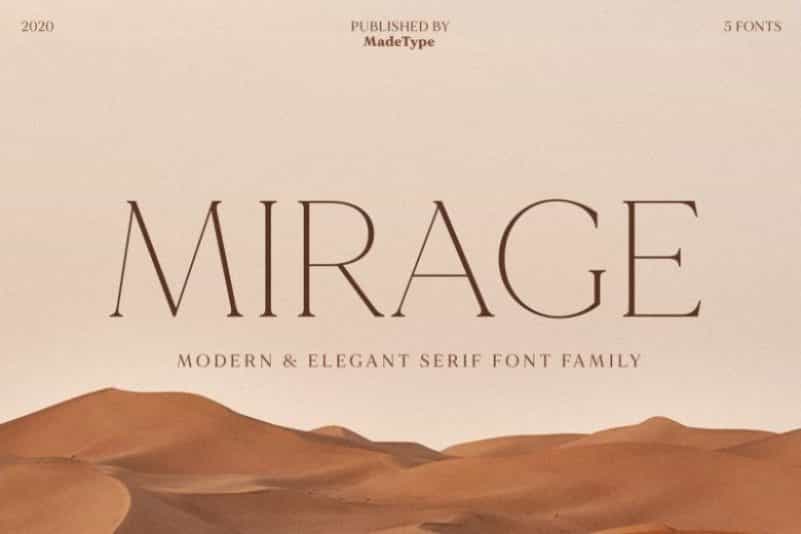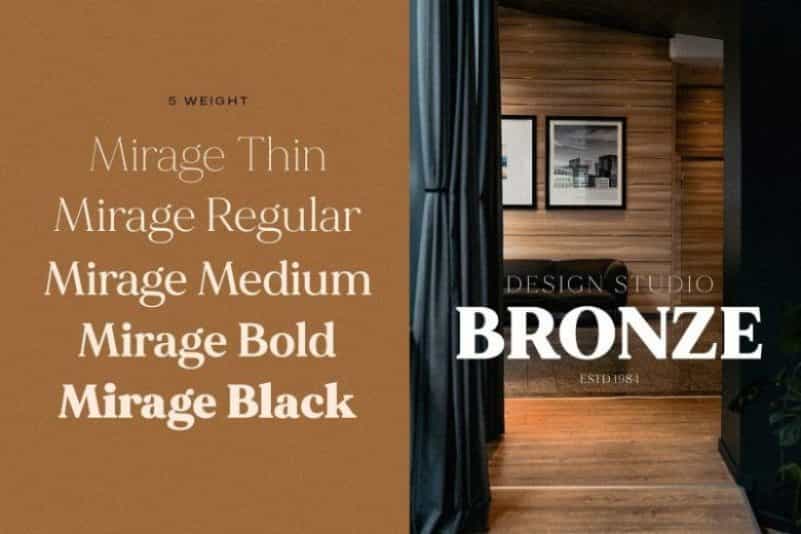
Discover MADE Mirage Serif Font Family, part of the Serif Display collection—a versatile and unique font perfect for adding a personal touch to your projects. Download it for free and enjoy crafting designs with style, from invitations to social media posts. This font is available exclusively for personal use, giving you the freedom to create without limits. Unlock your creativity with MADE Mirage Serif Font Family today!
Introducing MADE Mirage Font. MadeType is the creator and publisher. Achieve your luxurious, simple and modern design appearance using this font. Mirage MADE is a sleek serif type family.